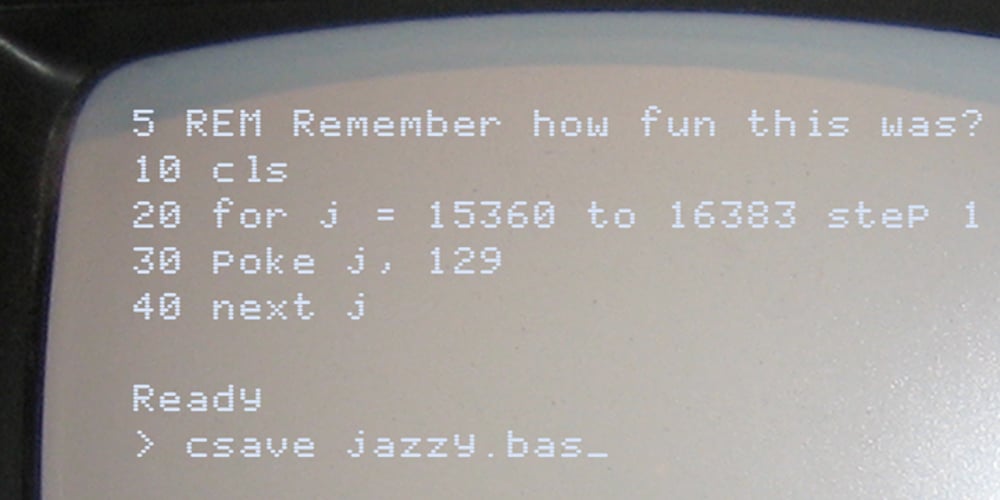
WL Rasteroids Old Font Family was designed by Samuel Goldstein and published by Writ Large. WL Rasteroids Old contains 1 styles and family package options. Rasteroids Old is a typographic flashback to computing of the early 1980s, when 7-pin dot-matrix printers were the state of the art, and most home computer displays were TVs hooked up to RF modulators. Rasteroids Old not only captures the dot-matrix printer look, but recreates the rasterized appearance of text on those lower-resolution monitors. Rasteroids Old is a fixed width font lacking any descenders. Furthermore, the character set is limited to the subset of US-ASCII that would be available on a typical machine of 1980. As such, it is not intended for large areas of copy.